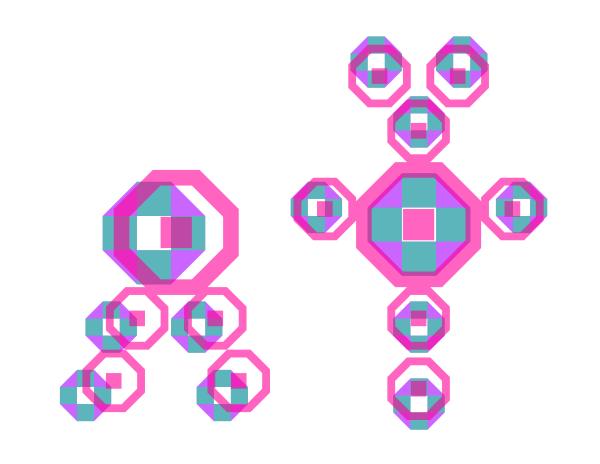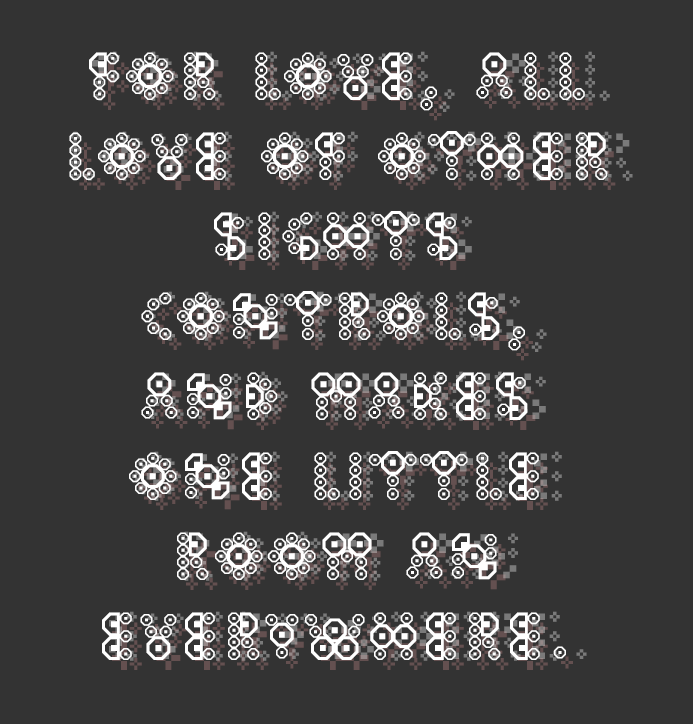
zdenička jen má jediná
pleasure garden
in terms of bricks AD version was conceived as the next layer to AB and AC, but due to some compression ratio (or what?) AD doesn’t fit the previous two... so only AB and AC will be mutually compatible and for AD has to be done (introduced) another two (AE+AF) compatible versions (alternatives to AB and AC) to achieve a fitting threesome... oh, such a dramatic typo love story full of unexpected twists and adversities!
AD+AE+AF / 3=12